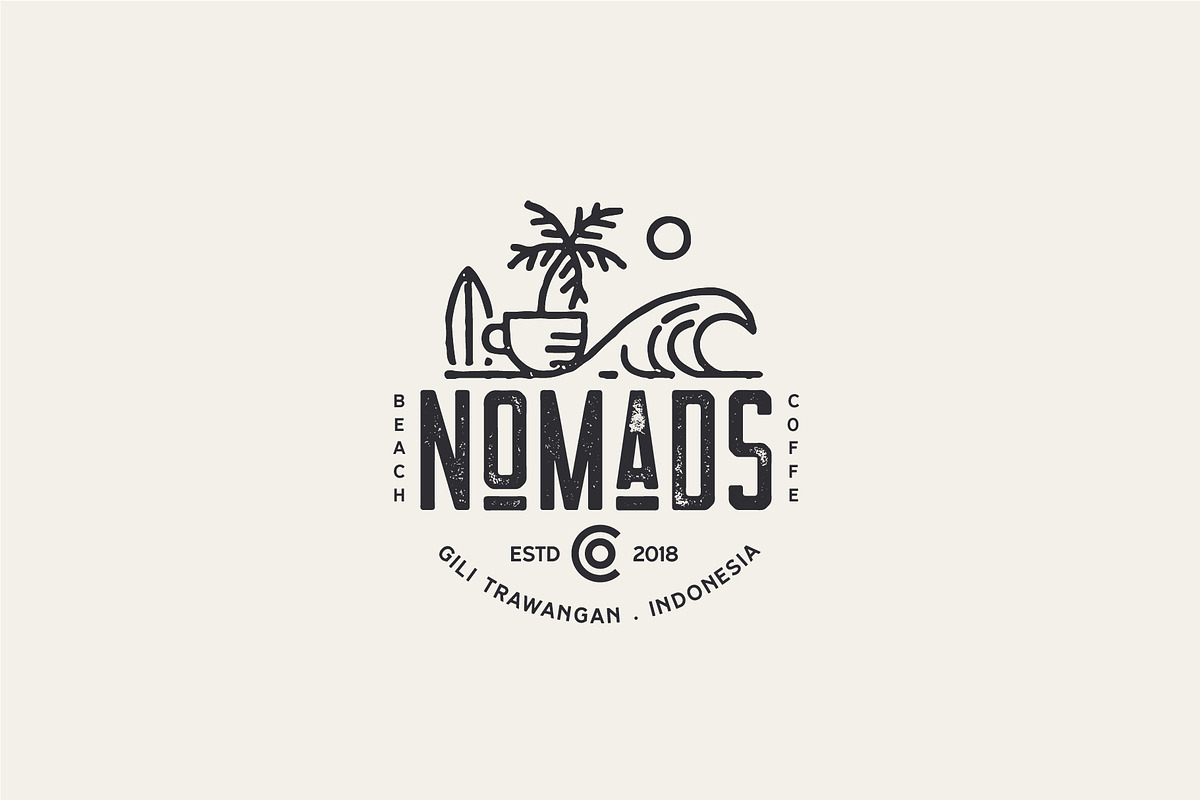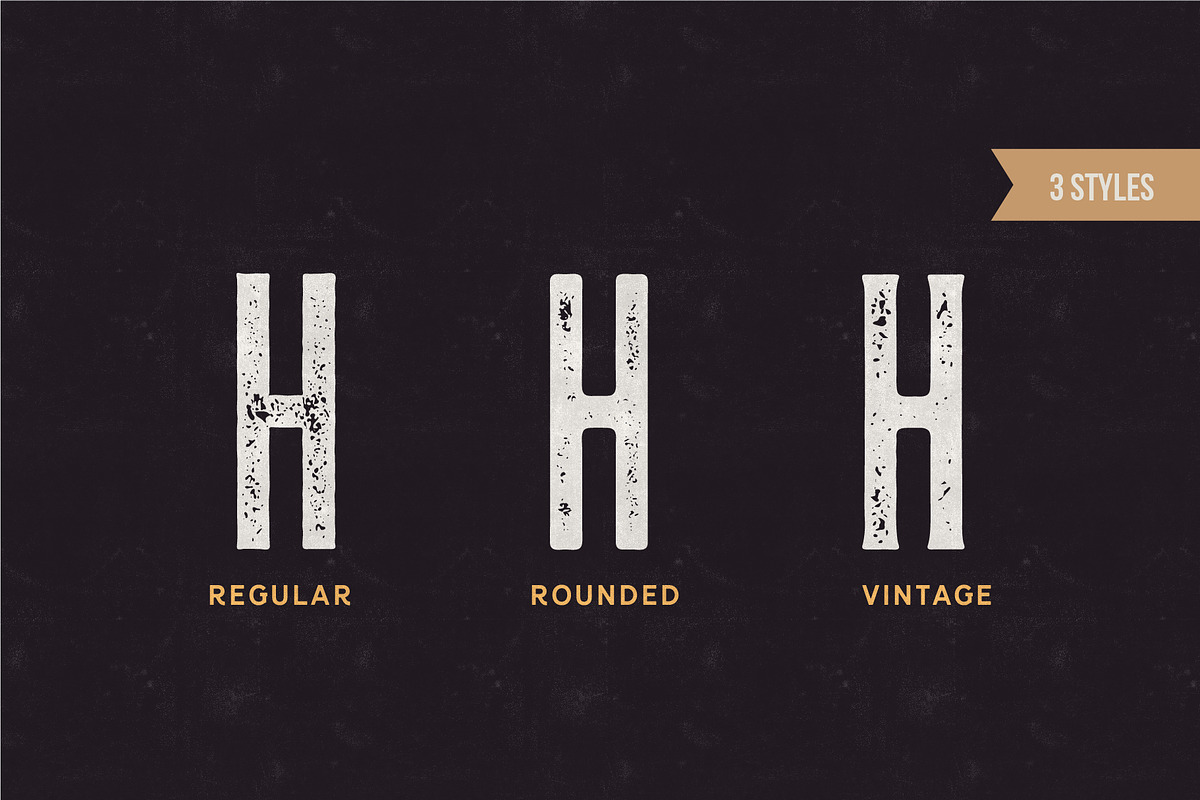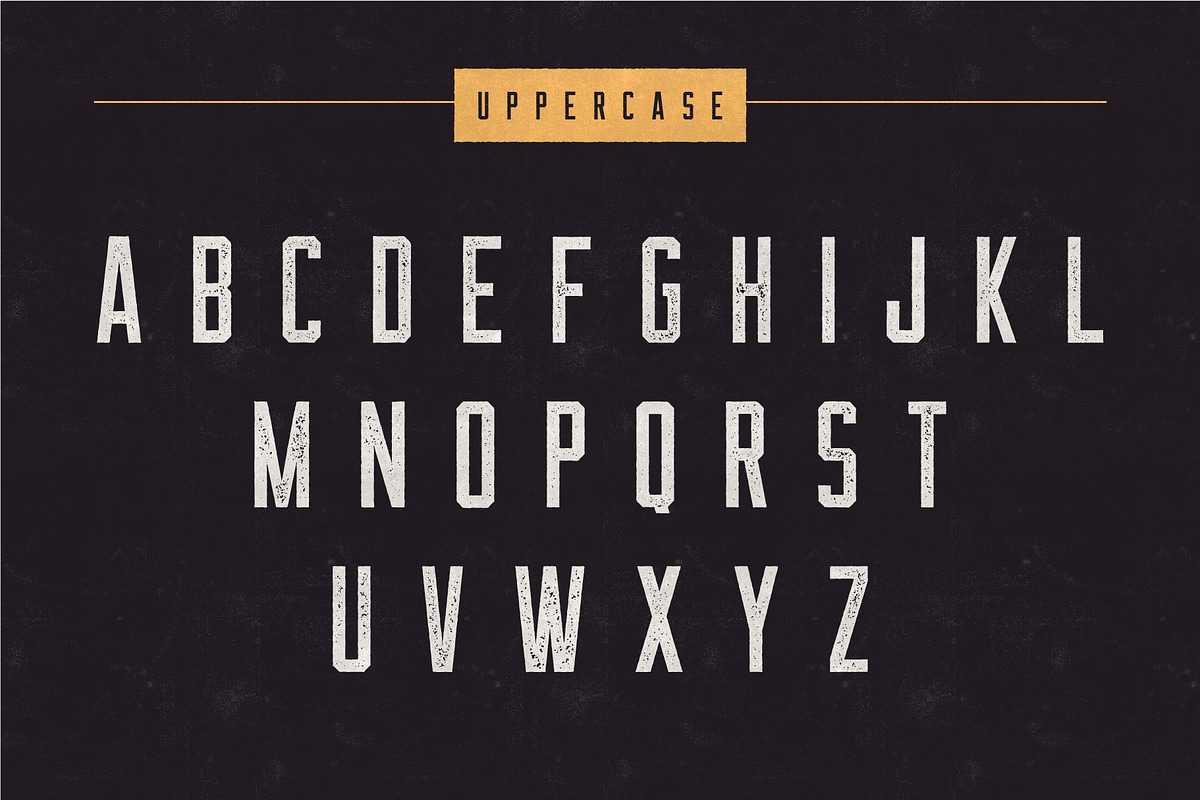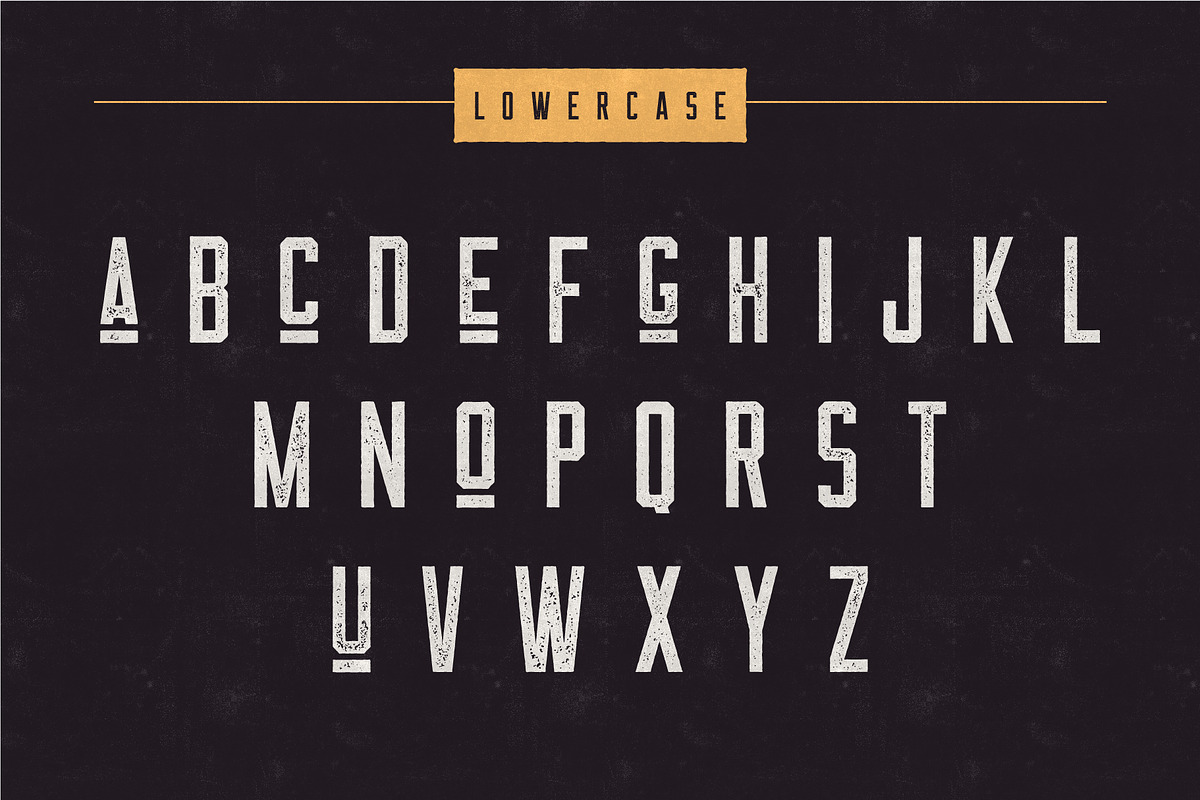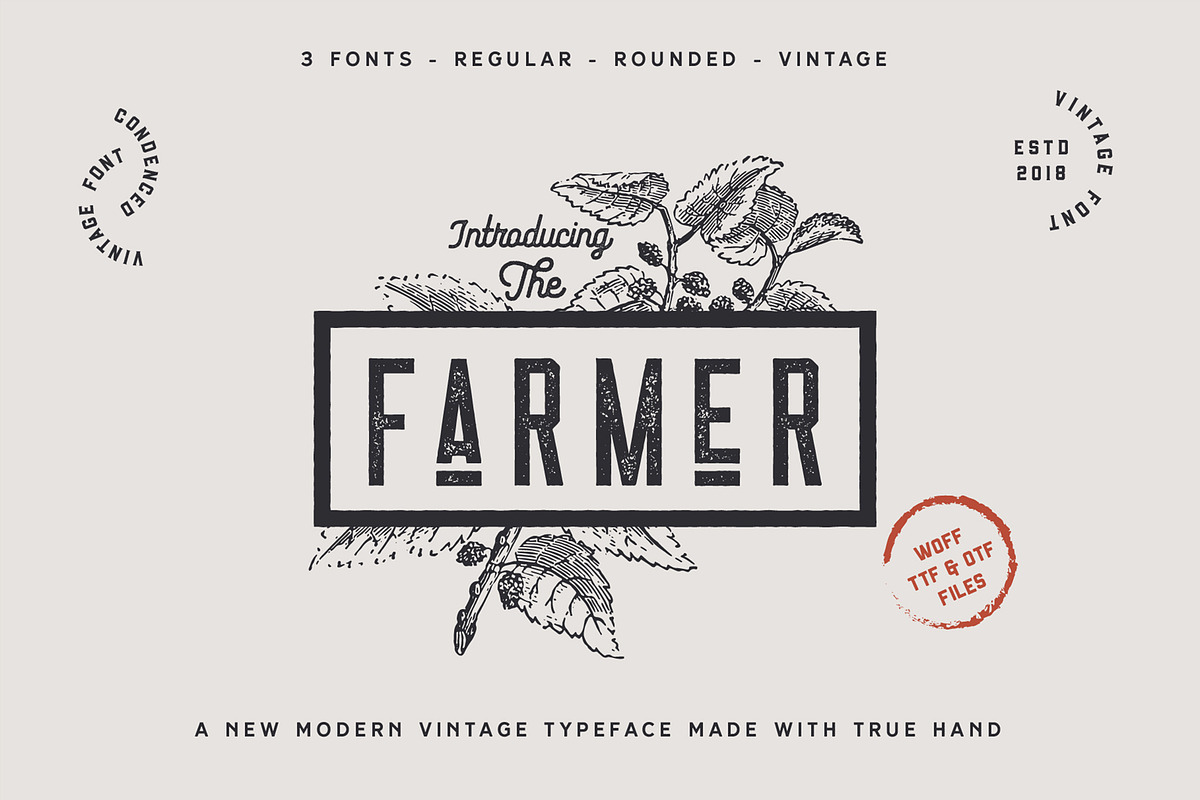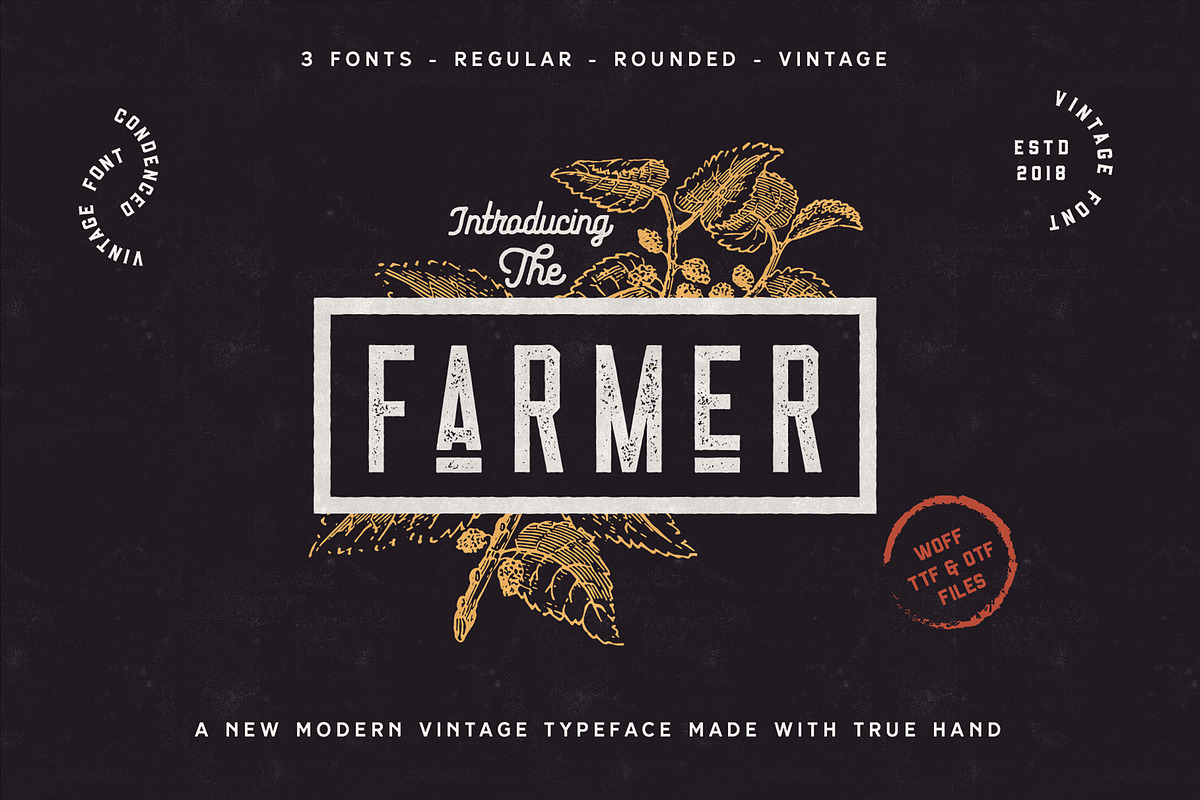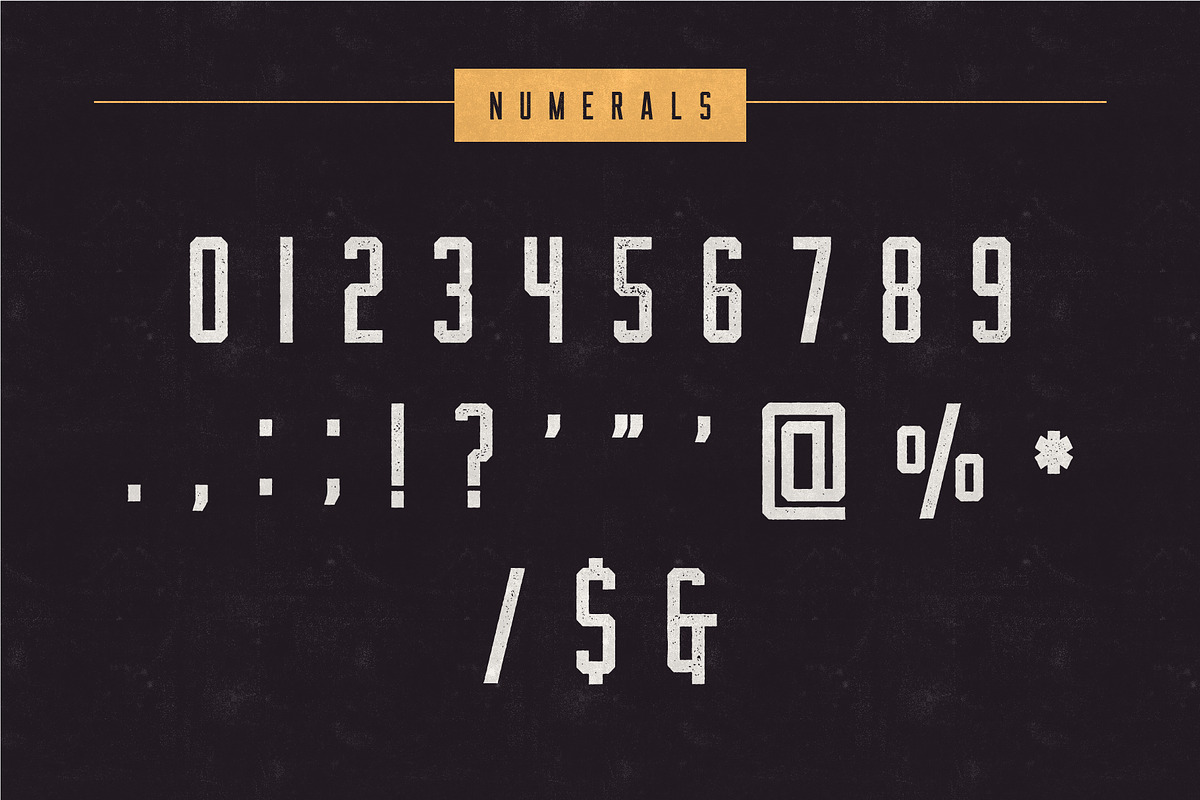
The Farmer Font - Condensed Typeface
The Farmeris a Textured ultra condensed Type Family that includes 3 styles: Regular, Rounded & Vintage versions. This family is an All-Caps family with each version contains a textured (Aged) and alternates. With 3 styles and iconic alternates, The Farmer can give a diverse set of aesthetics. With light giving a much more simple modern vintage look, fashionable feel and the bold giving a more rugged vibe for Simple Coffee shop logo, Brewing Company logo, basically anything that look strong and mature design look.
Numeral, Punctuation and Symbol
3 styles : Regular, Rounded, Vintage